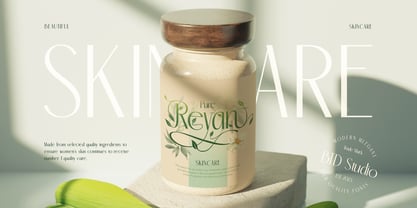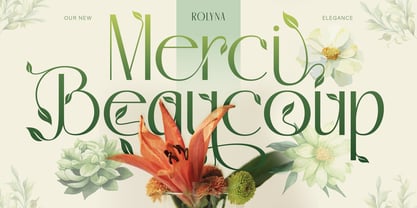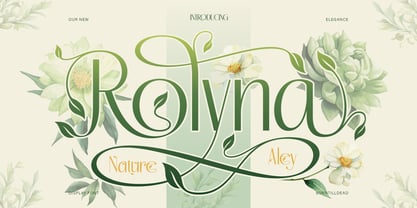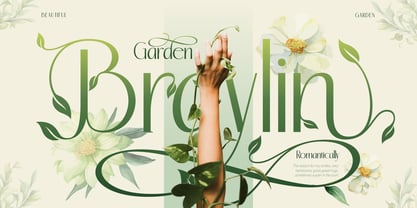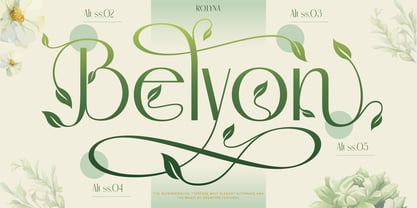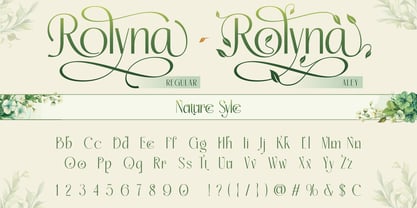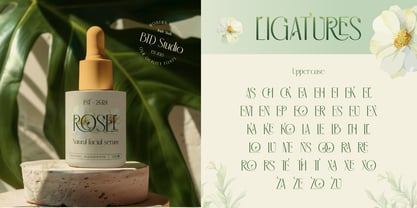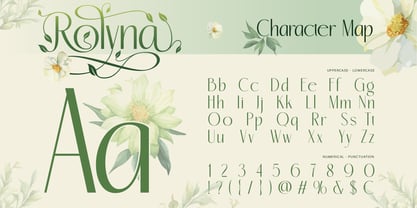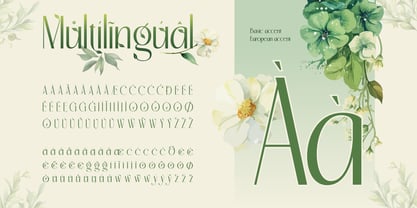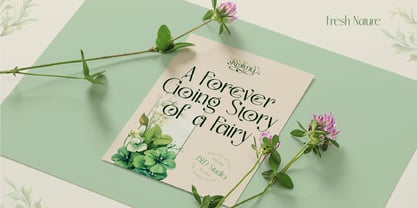
Rolyna
The Rolyna Font Family was designed by Eric Kurniawan and published by Burntilldead. Rolyna contains 2 styles and family package options. More about this family
Say hello to Rolyna — a fresh, nature-inspired display font that combines modern sophistication with elegant botanical charm. Rolyna comes in two distinct styles: Regular for a clean look, and Aley with decorative swashes and leafy details, perfect for those who love a whimsical, organic feel.
Its tall letterforms and nature-inspired flourishes create a unique visual identity that feels both graceful and playful, like vines growing on a fairytale garden gate. Rolyna is ideal for skincare and botanical logo designs, herbal packaging, eco-friendly branding, Wedding invitations with a garden or rustic theme, romantic editorial titles, fashion layouts, greeting cards, journals, and many other creative projects.
Features:
• Uppercase & Lowercase
• Number
• Punctuation
• Alternate
• Ligatures
• Multilingual